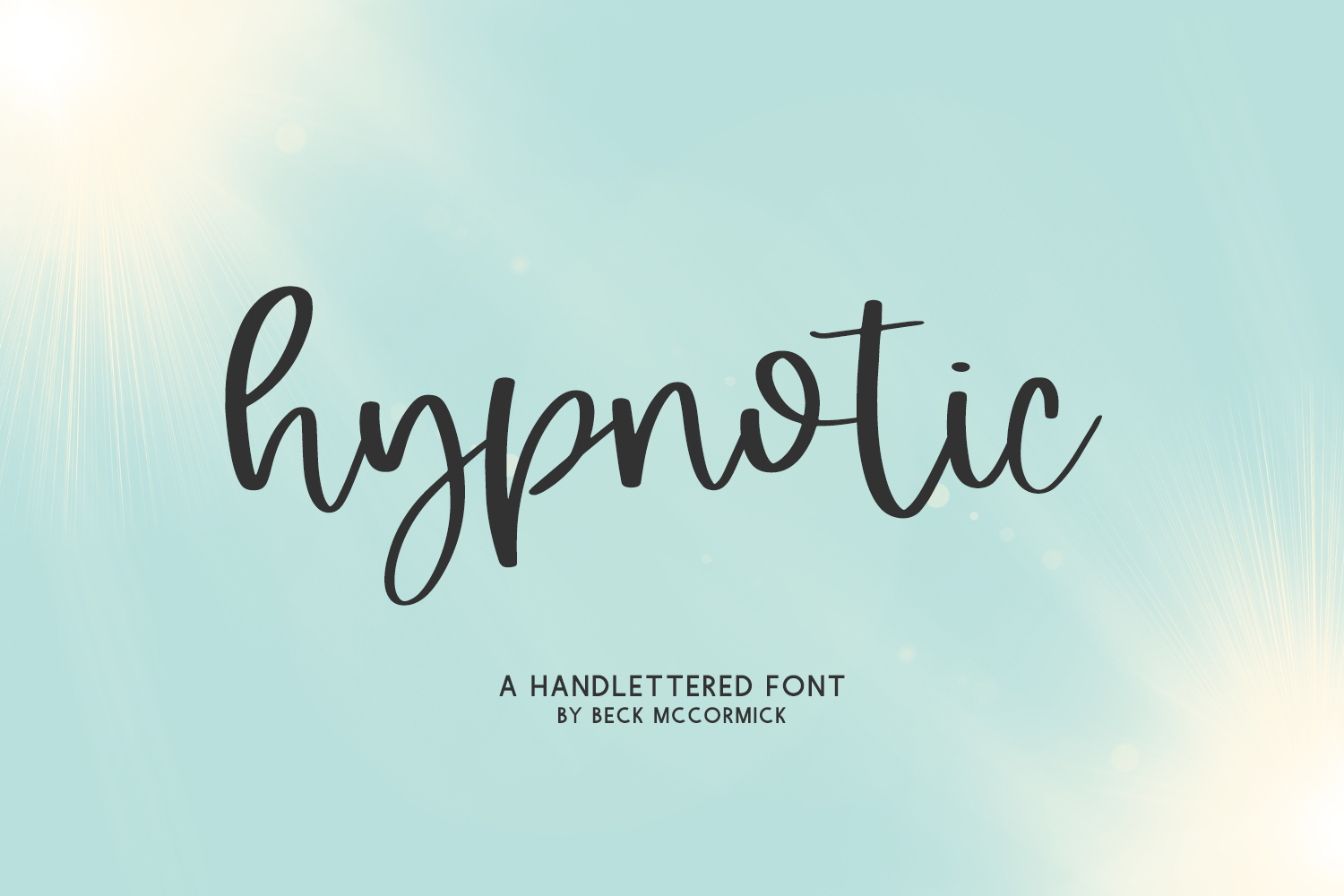
Introducing Hypnotic, a cute modern calligraphy font.
Hypnotic is best for:
- feminine, crafty projects with your Cricut or Silhouette machine, or your SVG design business
- farmhouse decor and crafts
- digital planners & apps like Goodnotes
- website design + website accents, blog design
- feminine graphic tee shirt design & other apparel